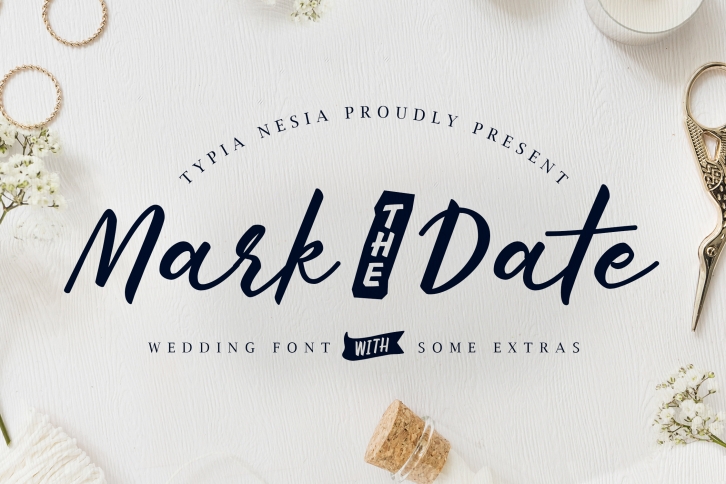
Mark The Date is a great font that was designed by Typia nesia. Imagine the amount of combinations you can create using this font! The archive is 17.66 MB and it was released on September 13, 2019. Mark The Date looks beautiful on wedding invitations, greeting cards, logos, posters, labels, t-shirt designs, logos, business cards and is perfect for use in ink or watercolor works, fashion, magazines, packaging and food menus, children's books and more!